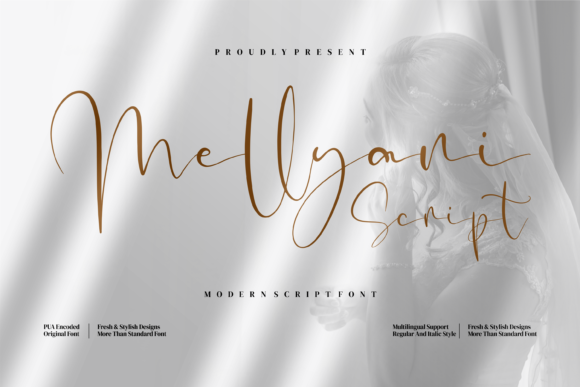
Embark on a typographic odyssey with Mellyani Script, a captivating script font that exudes charm and playfulness. Each character dances along the baseline, adding a touch of whimsy to your creative endeavors. Unleash your imagination and witness how Mellyani Script transforms your designs into captivating masterpieces.
Immerse yourself in the world of Mellyani Script, where letters intertwine like delicate vines, creating a symphony of visual elegance. This enchanting font is a true treasure for those seeking to add a personal touch to their projects. Whether you're a seasoned designer or just starting your creative journey, Mellyani Script is the perfect companion for adding a touch of magic to your work.
With Mellyani Script, you'll discover a font that's not just visually stunning but also incredibly versatile. Its playful nature lends itself to a wide range of applications, from whimsical branding and packaging designs to enchanting invitations and greeting cards. Let Mellyani Script be your muse as you explore new creative horizons and leave a lasting impression on your audience.
Don't miss out on the opportunity to elevate your designs with Mellyani Script. Its charming characters and playful spirit will add a touch of magic to your work, captivating your audience and leaving them spellbound. Embrace the beauty of Mellyani Script and embark on a creative journey like never before.